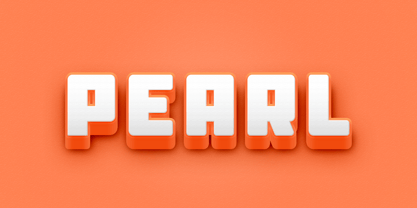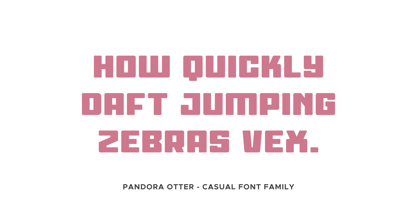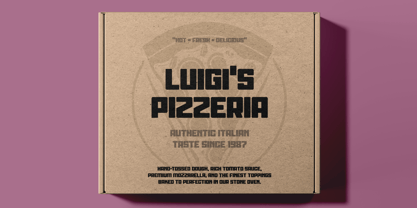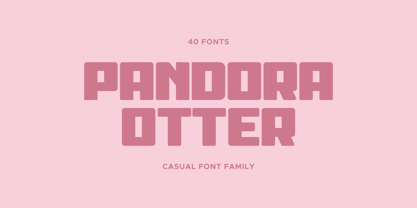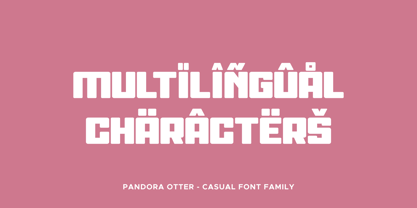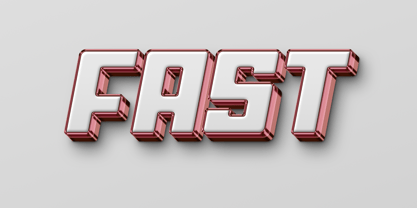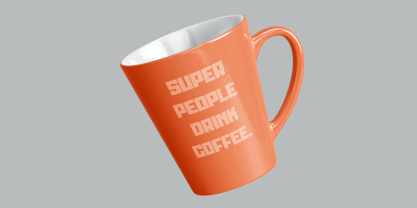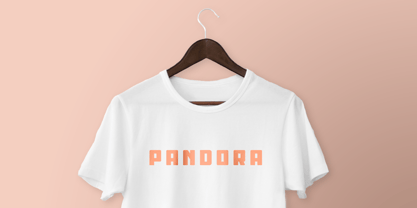
Pandora Otter is a bold, rounded sans serif typeface designed to deliver strong visual impact with a handcrafted personality. Built for versatility and expressive typography, Pandora blends soft rounded forms with confident weight, creating a friendly yet powerful presence across both digital and print design.
This type family offers a wide range of stylistic textures and effects, making it suitable for branding, packaging, posters, editorial headlines, social media graphics, apparel design, and creative display work. The rounded structure ensures excellent readability while maintaining a playful and contemporary tone.
The family includes styles such as Regular, Italic, Outline, Brush, Cut, Ink, Rough, Grit, Eroded, Rust, Scratch, and Worn, along with their italic and outline counterparts. These variations introduce dynamic textures and organic imperfections that bring energy and character to any design.
With extensive language support covering 89 languages, Pandora is well suited for international projects and global branding. Its strong structure and rounded aesthetic make it particularly effective for logos, headlines, signage, posters, album artwork, gaming graphics, and modern marketing visuals.
Pandora is ideal for designers who want a bold display typeface that combines personality, flexibility, and expressive texture while maintaining clarity and balance.
Pandora Otter